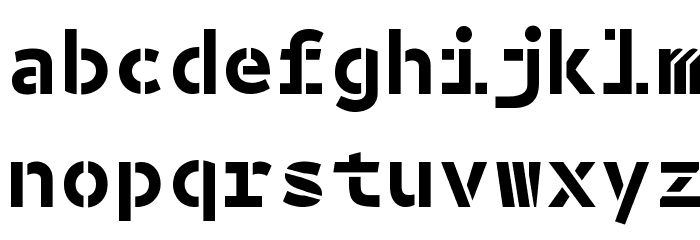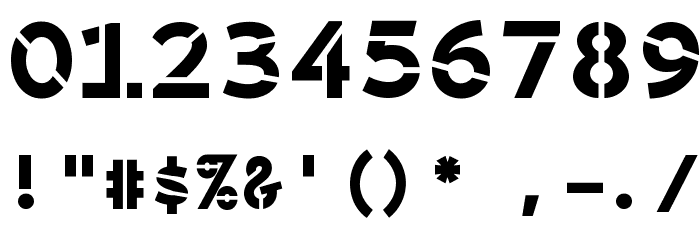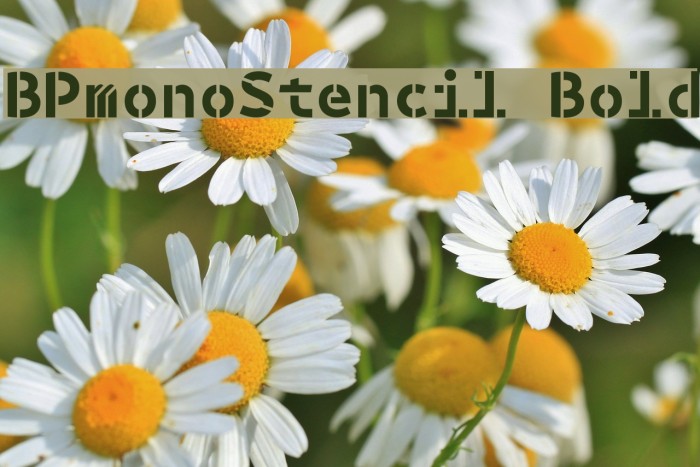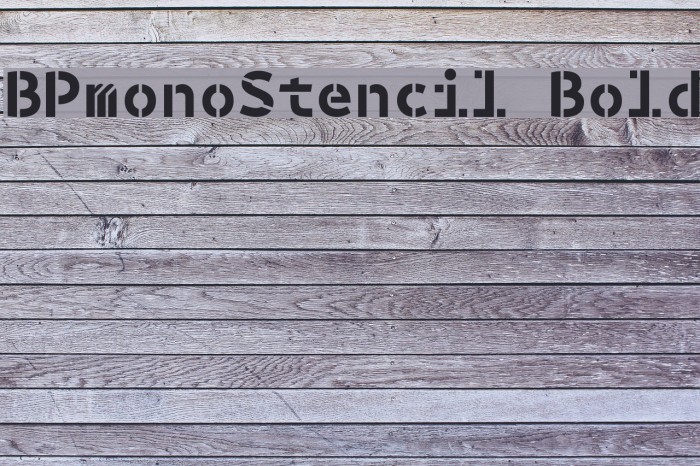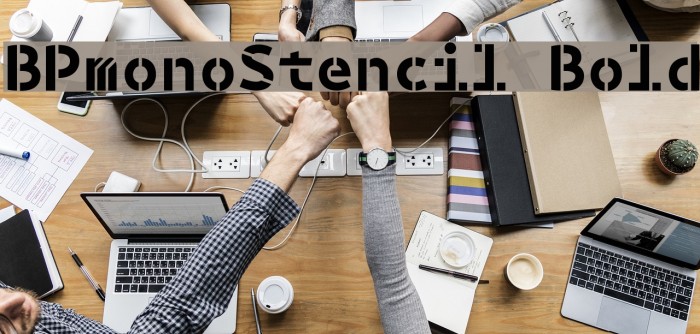
BPmonoStencil Bold Font
This bold stencil font features a monospaced design with distinct, geometric shapes. Each character is crafted with precision, showcasing a modern and industrial aesthetic. The font's bold weight and stencil style create a striking visual impact, making it ideal for attention-grabbing designs. The uppercase and lowercase letters maintain a consistent width, enhancing the monospaced appearance. The numbers and special characters are equally bold and well-defined, contributing to the font's cohesive look. The stencil gaps add a unique touch, allowing for creative layering and color play in design projects.
A bold, monospaced stencil font with a modern industrial aesthetic.
- Proposed Projects: Ideal for branding, posters, signage, and any project requiring a bold, industrial look.